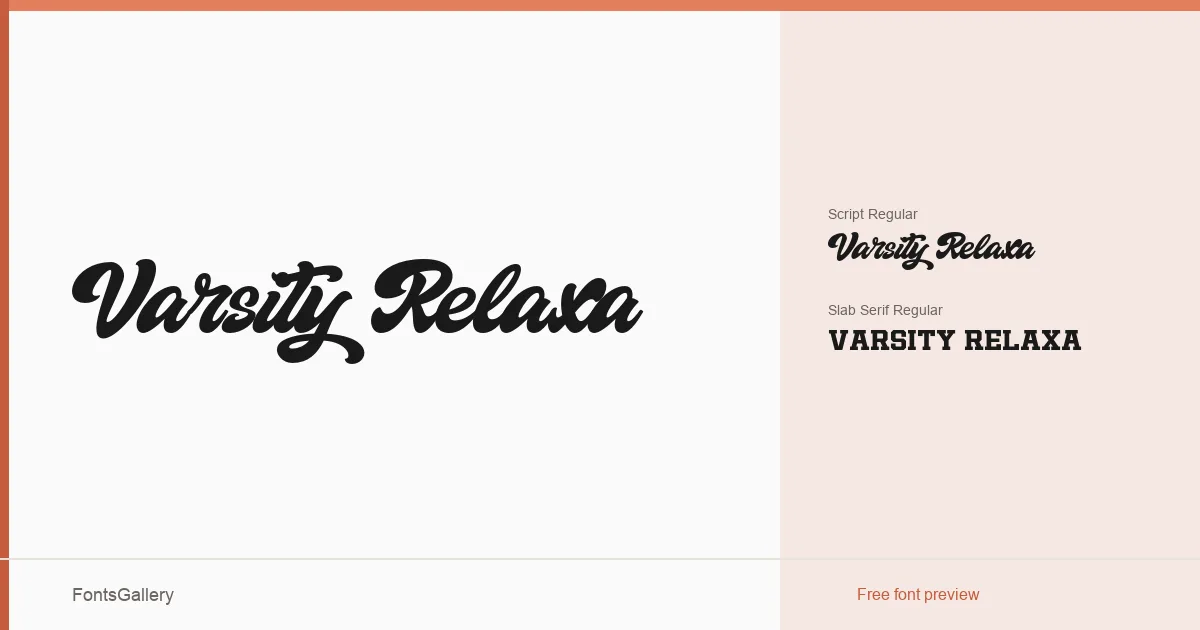
About Varsity Relaxa Font
Varsity Relaxa is a script typeface designed by Dida Ahluddin under the ahweproject foundry. It blends a playful, vintage energy with bold, classic character, making it a distinctive choice for creative projects that demand personality and visual impact. Its name evokes a relaxed yet confident varsity-inspired aesthetic that stands out across a wide range of design applications.
As a script font rooted in playful and vintage moods, Varsity Relaxa features flowing letterforms with a bold, expressive weight that commands attention. The classic undertones in its design give each character a timeless quality, while the playful energy keeps it feeling fresh and approachable. This combination of bold strokes and script fluidity creates a typeface that is both nostalgic and visually dynamic.
Varsity Relaxa is ideally suited for logos, posters, branding projects, social media graphics, and t-shirt designs where a strong, characterful script can take center stage. Its bold vintage charm makes it especially effective for lifestyle brands, apparel labels, and eye-catching promotional materials. For a well-balanced pairing, consider combining it with Aresink for a cohesive creative look, or with Helvetica to contrast its expressive script style with clean, neutral simplicity.